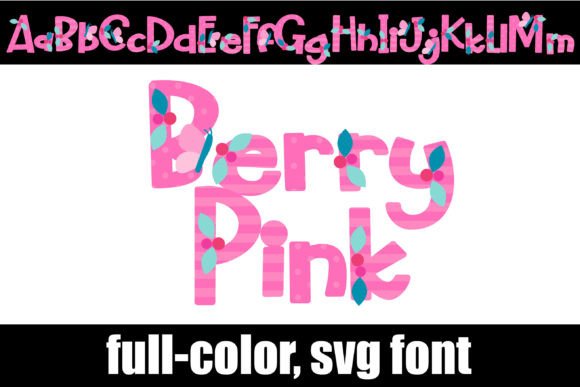
Introducing Berry Pink Font - The Enchanting Christmas Font That Will Make Your Designs Sparkle!
Journey into a winter wonderland with Berry Pink Font, a captivating new font family designed to bring the magic of Christmas to life. This enchanting font, the brainchild of Illustration Ink, bursts with vibrant colors and playful patterns, immersing you in the joy and cheer of the festive season.
With Berry Pink Font, you'll be able to create stunning designs that capture the essence of Christmas, from eye-catching posters and banners to heartfelt greeting cards and invitations. Let the festive spirit flow through your creations as you effortlessly transform ordinary text into captivating works of art.
Adorned with a delightful array of pink berries, each letter in the Berry Pink Font dances with a unique charm. This enchanting font family offers an alternate version of each letter in a dazzling array of colors, accessible through your system or Silhouette's character map. This delightful feature empowers you to mix and match colors, creating endless possibilities for personalized designs that reflect your unique style and creativity.
Imagine the wonder in your children's eyes as they receive Christmas cards adorned with the whimsical letters of Berry Pink Font. The vibrant colors and playful patterns will fill their hearts with joy and excitement, making the holiday season even more magical.
For those with a creative flair, the Berry Pink Font presents a treasure trove of possibilities. Unleash your imagination and create captivating logos, branding materials, and social media posts that radiate the warmth and cheer of the Christmas spirit. Whether you're a seasoned designer or just starting, Berry Pink Font will elevate your creations to new heights, leaving a lasting impression on your audience.
With Berry Pink Font, you'll possess the power to transform everyday designs into extraordinary expressions of joy and creativity. Embrace the festive spirit, let your imagination soar, and discover the boundless possibilities that await you.